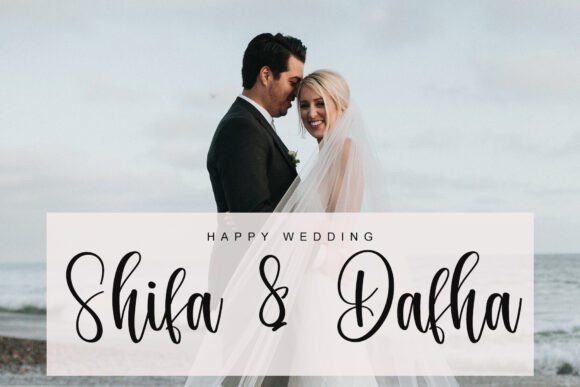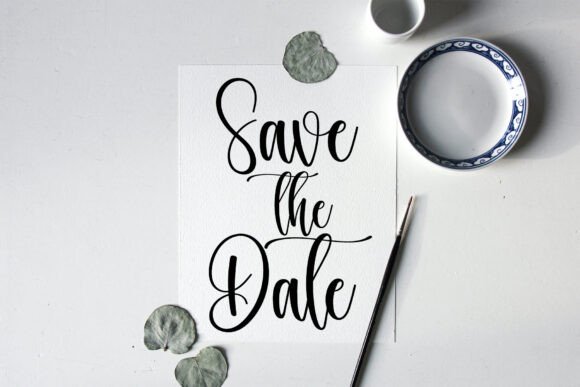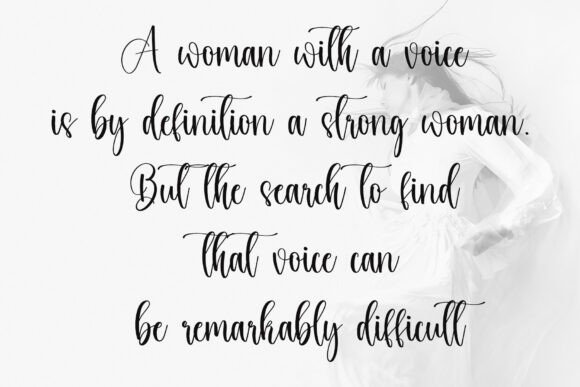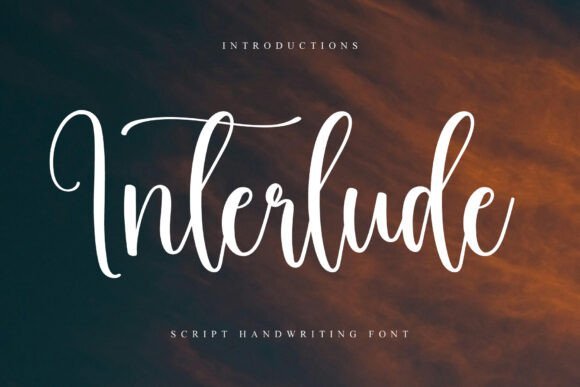
Introduction to Interlude Font
Interlude is a stylish and dainty script font.
It is suitable for any projects such as : logos, branding projects, label, photography, watermark, special events, and all your other lovely projects that need a beautiful script taste This font is PUA encoded which means you can access all of the glyphs and swashes with ease.
Interlude Font offers exceptional quality and versatility, making it a valuable addition to your design toolkit. Whether you’re creating for personal projects or commercial use, Interlude Font delivers professional results.